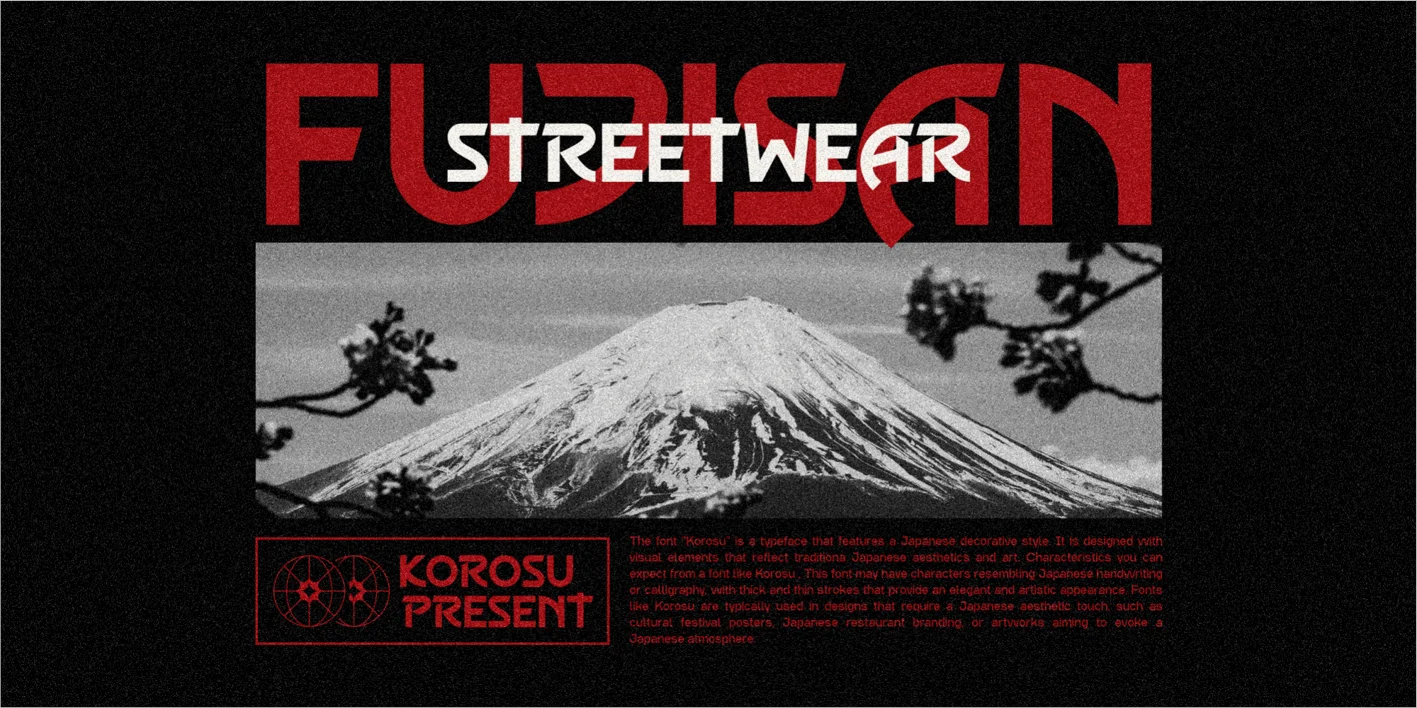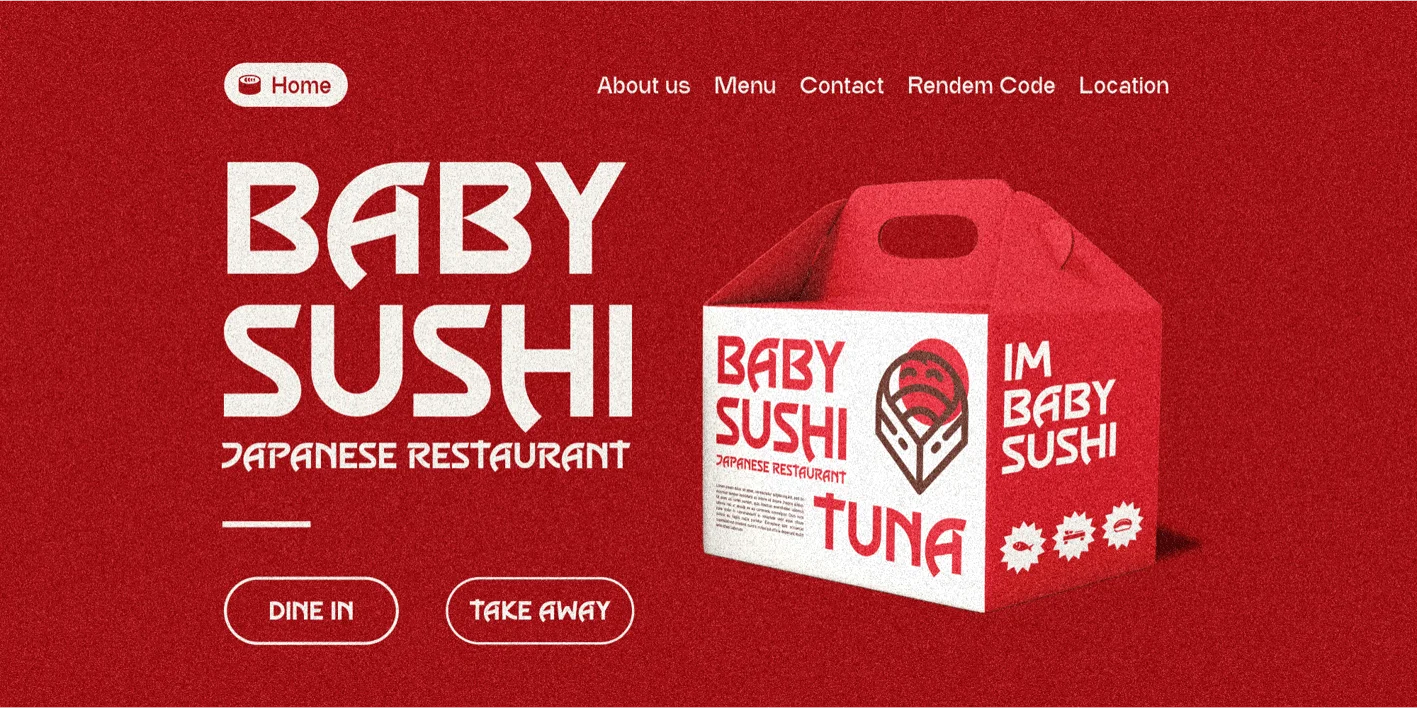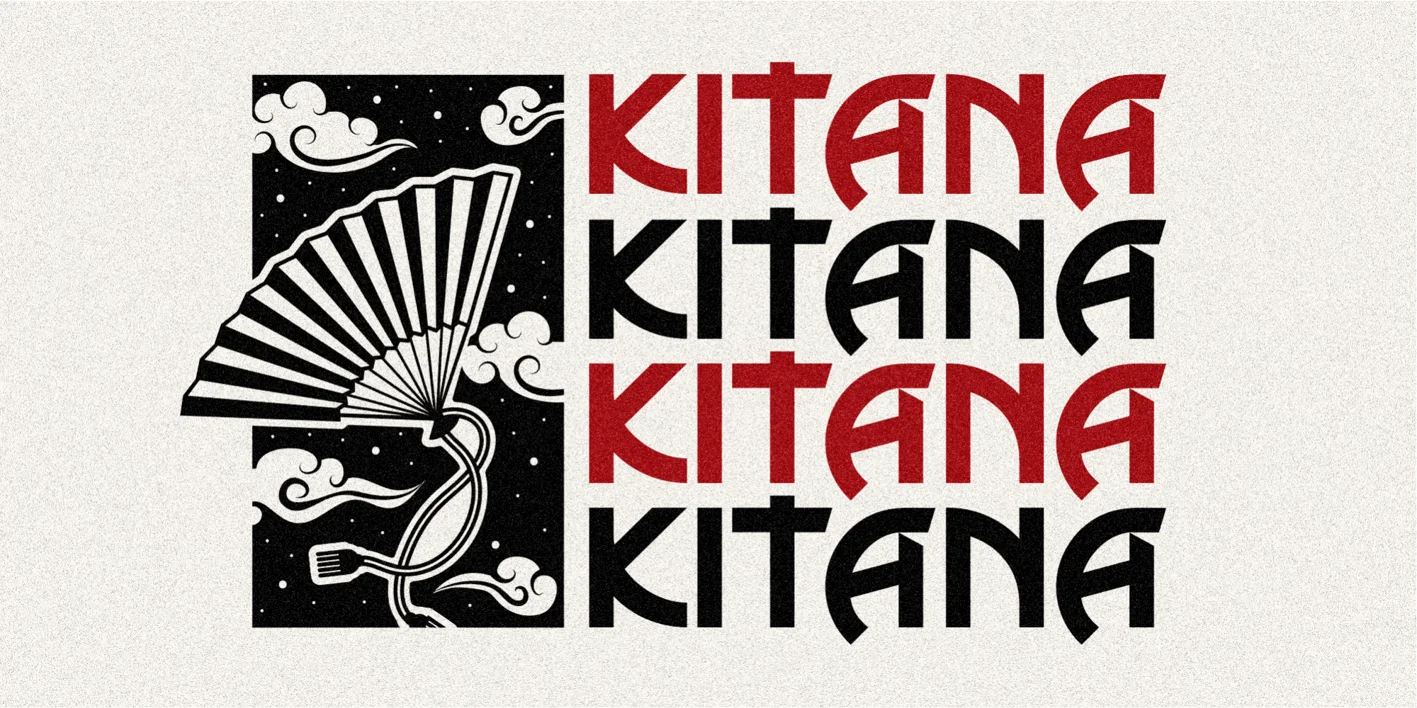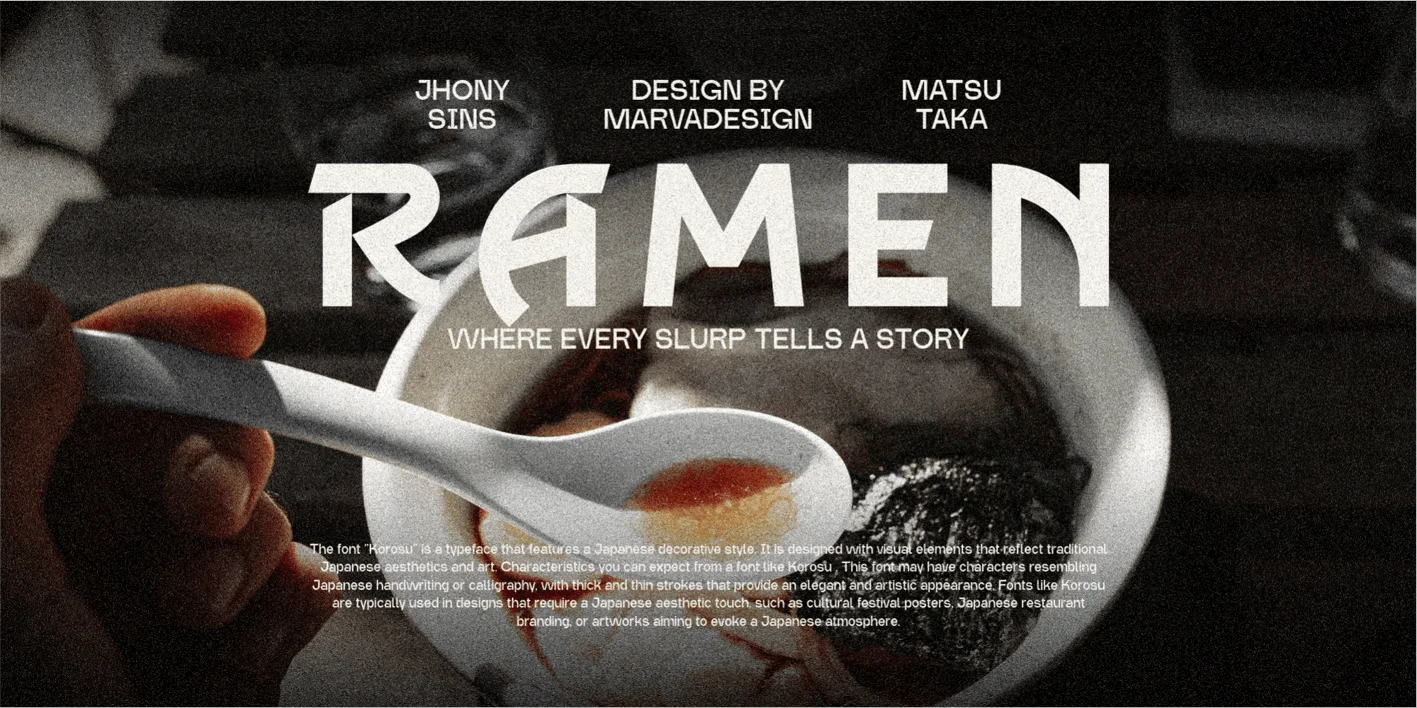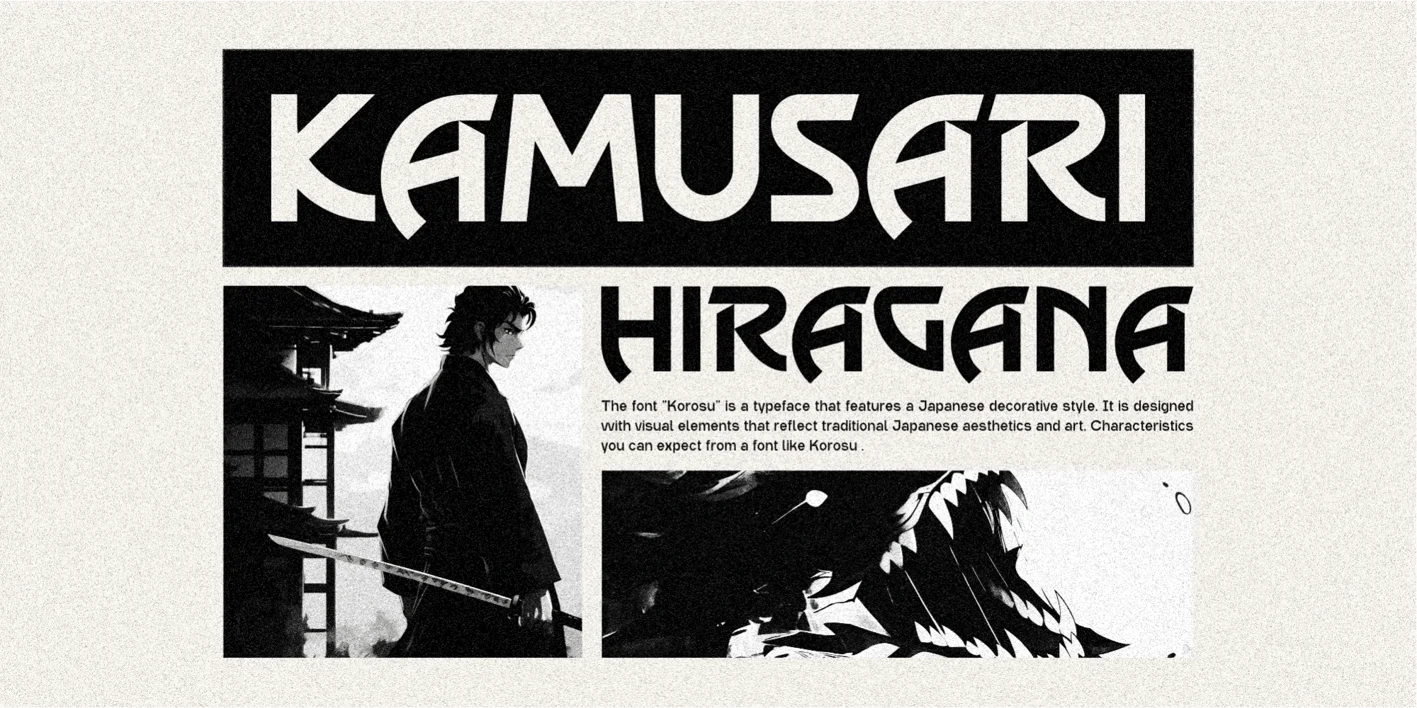
Korosu Font
There is a particular satisfaction in finding a typeface that delivers strong typographic hierarchy support without compromise. Korosu consistently provides it. The typeface brings a versatile sensibility to a broad range of creative disciplines, with versatility across print and screen contexts that holds up whether the work is print-first or screen-first.
In practice, Korosu proves particularly effective for poster creation, product labels, signage systems, packaging design, environmental graphics. Designers reaching for it find that the type decisions feel resolved rather than laboured — a useful quality when client timelines are tight.
The range of applications extends to advertising campaigns, brand identity systems, web design, logo design. That breadth is deliberate: the proportions and spacing were stress-tested across a wide range of mock briefs before the typeface was finalised.
Korosu sits comfortably alongside both classic and contemporary typefaces in multi-font hierarchies. It takes direction rather than competing for attention — a quality that experienced designers know is harder to find than it appears.
Independent studios handling packaging and editorial work find Korosu a reliable choice for projects that demand both personality and restraint. The design avoids the self-conscious quirkiness that dates quickly, settling instead for considered distinctiveness that holds up over time.